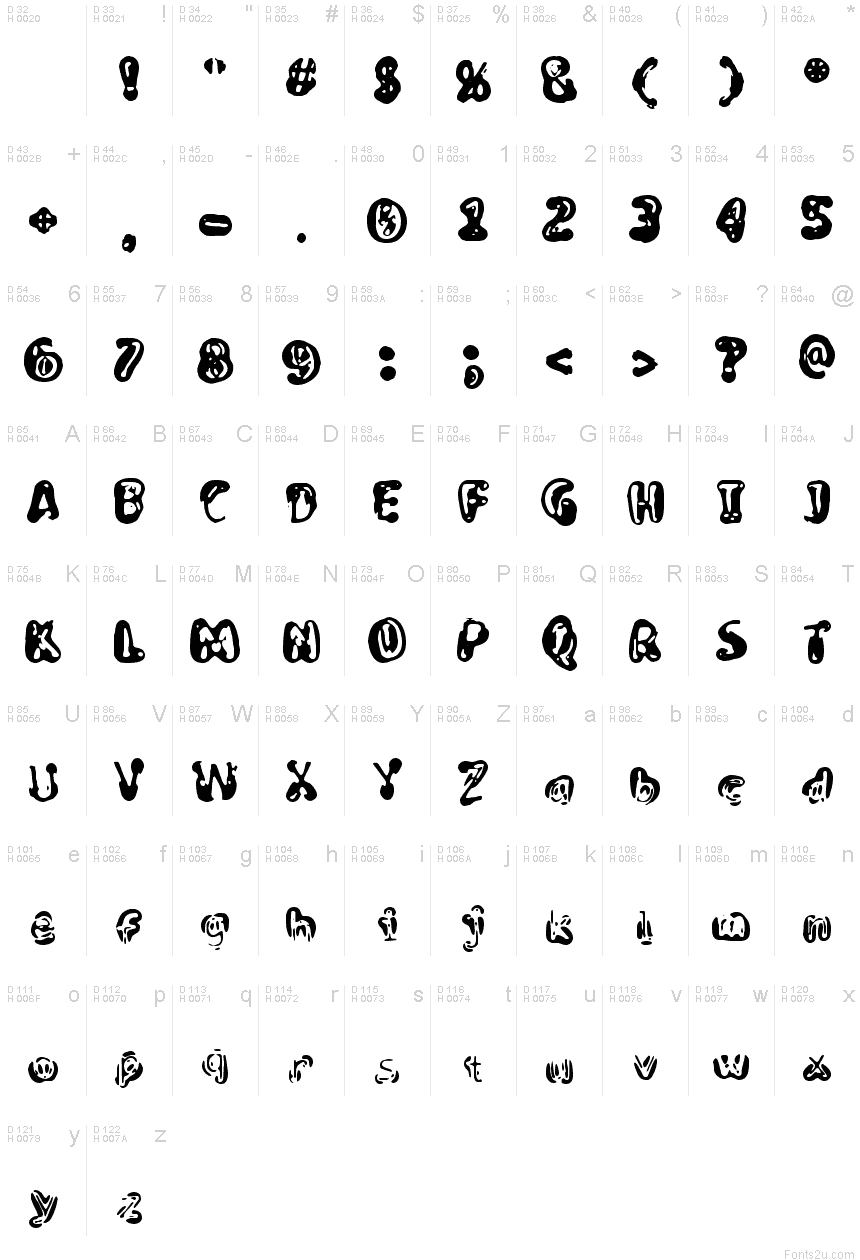
Noyes
Noyes, designed by Mike Sugarbaker in 1994, is a free decorative display font shaped by swollen black silhouettes and carved white pockets that make the lettering look puddled and slightly biological. That recurring blob-like rhythm keeps the alphabet cohesive while giving each form a warped, hand-cut presence instead of a neat geometric structure.
The font makes the most sense on posters, zine covers, underground flyers, album art, and oddball event titles where that lumpy silhouette can do the talking. Its dark mass and uneven inner cutouts also give short packaging labels or horror-themed graphics a sticky, unstable texture that would feel misplaced in ordinary display type.